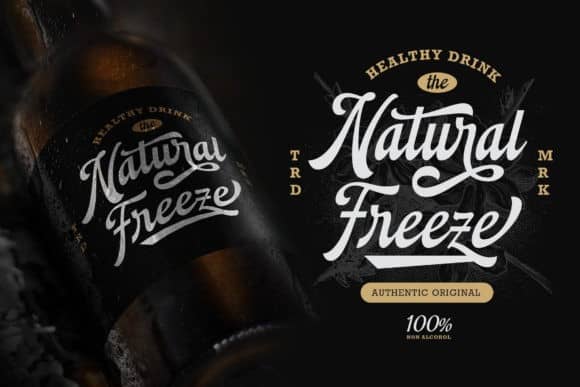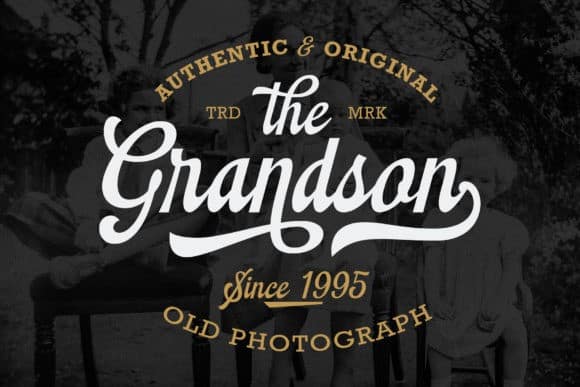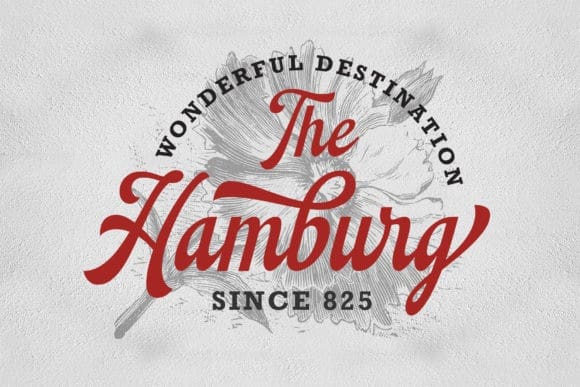
Thanks for checking out Montheim Script Font is a stylish and original multi-functional typeface. It’s designed and shared by Arterfak Project. With it, you can create beautiful logos, labels, templates, signs, highlight text, use it for outdoor advertising, branding, and much more. Also in this font there are stylistic alternates and swashes that will make your design even more attractive and interesting. It is easy to use and has OpenType features.